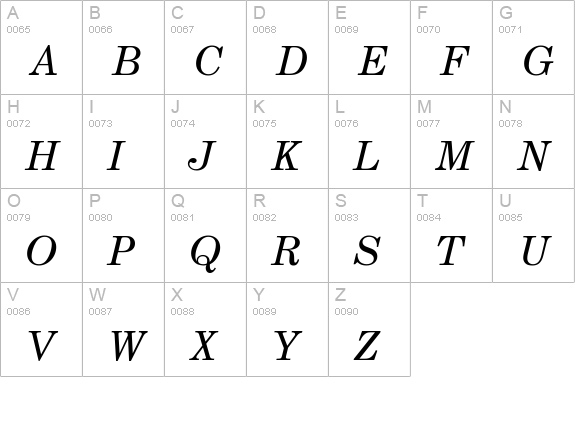
Century Schoolbook SSi Italic is a distinctive, italic variant in the Century typeface family \xE2\x80\x94 well suited to design and typography projects.
Century Schoolbook SSi Italic is a classic and elegant font that adds a touch of sophistication to any project. Its slanted design conveys a sense of style and flair, making it ideal for use in headings, quotes, and other prominent text. The italicized form of Century Schoolbook SSi exudes a sense of movement and dynamism, drawing the reader's eye to the words on the page. What's more, Century Schoolbook SSi Italic is available for free download at FontsMarket.com. This means you can easily access this beautiful font and enhance your designs without any cost. Whether you're working on a professional project or a personal creative endeavor, Century Schoolbook SSi Italic is a versatile and attractive choice that will elevate your work to the next level. Get your hands on this stylish font today and see the difference it can make in your designs.